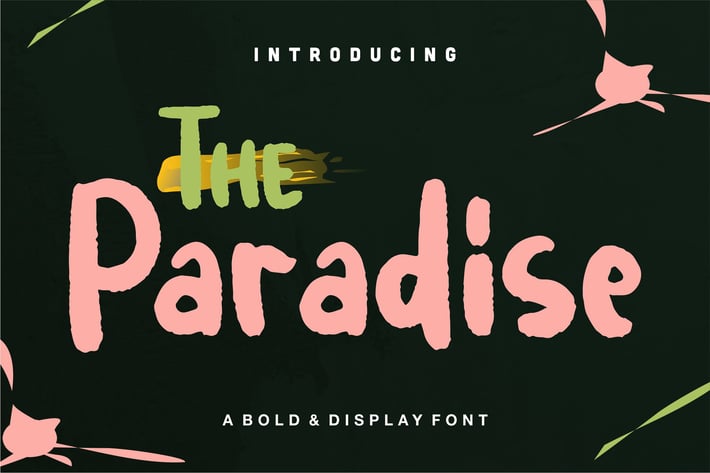
The Paradise | A Bold & Display Font
The Paradise | A Bold & Display Font with a calligraphy style, So beautiful on invitation like greeting cards, branding materials, business cards, quotes, posters, and more!